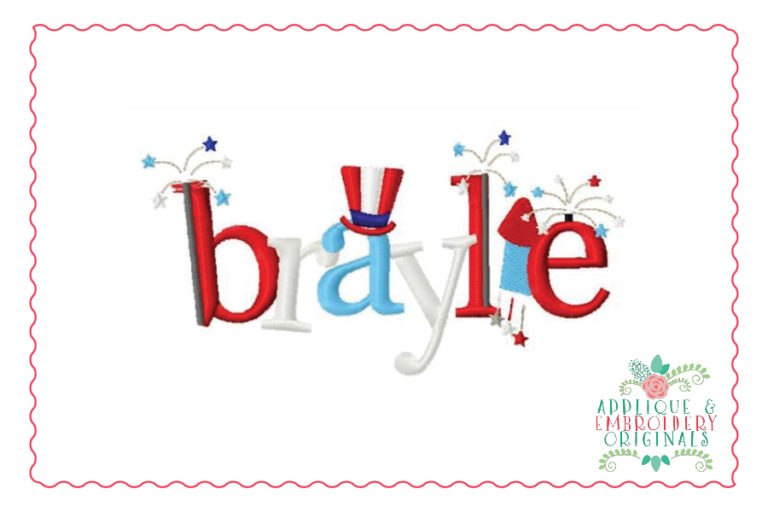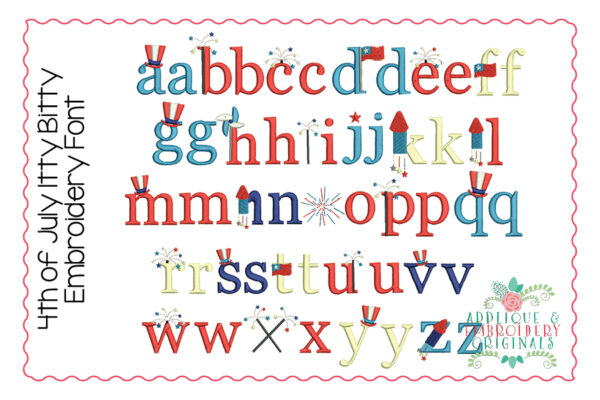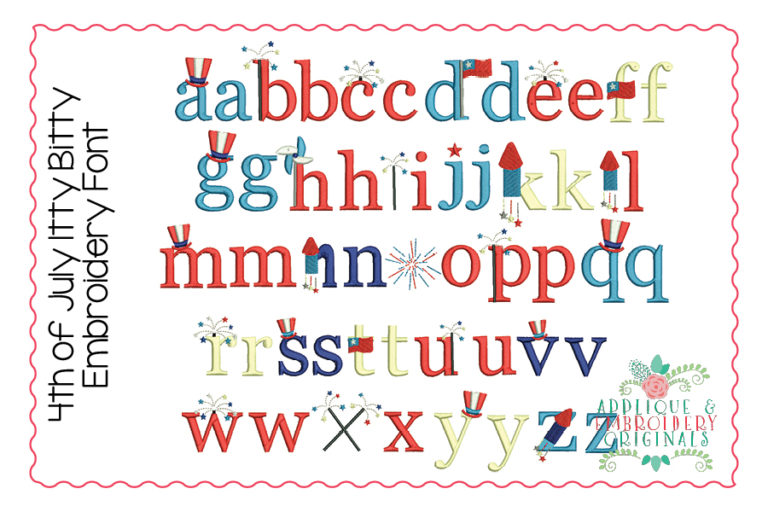
384 4th of July Itty Bitty Embroidery Font for embroidery machine. Perfect for your shirt, bag, towel or other item!
This font is approximately 2-2.5″ tall. All letters are embroidery and the font set includes both the special letters and the normal letters shown.